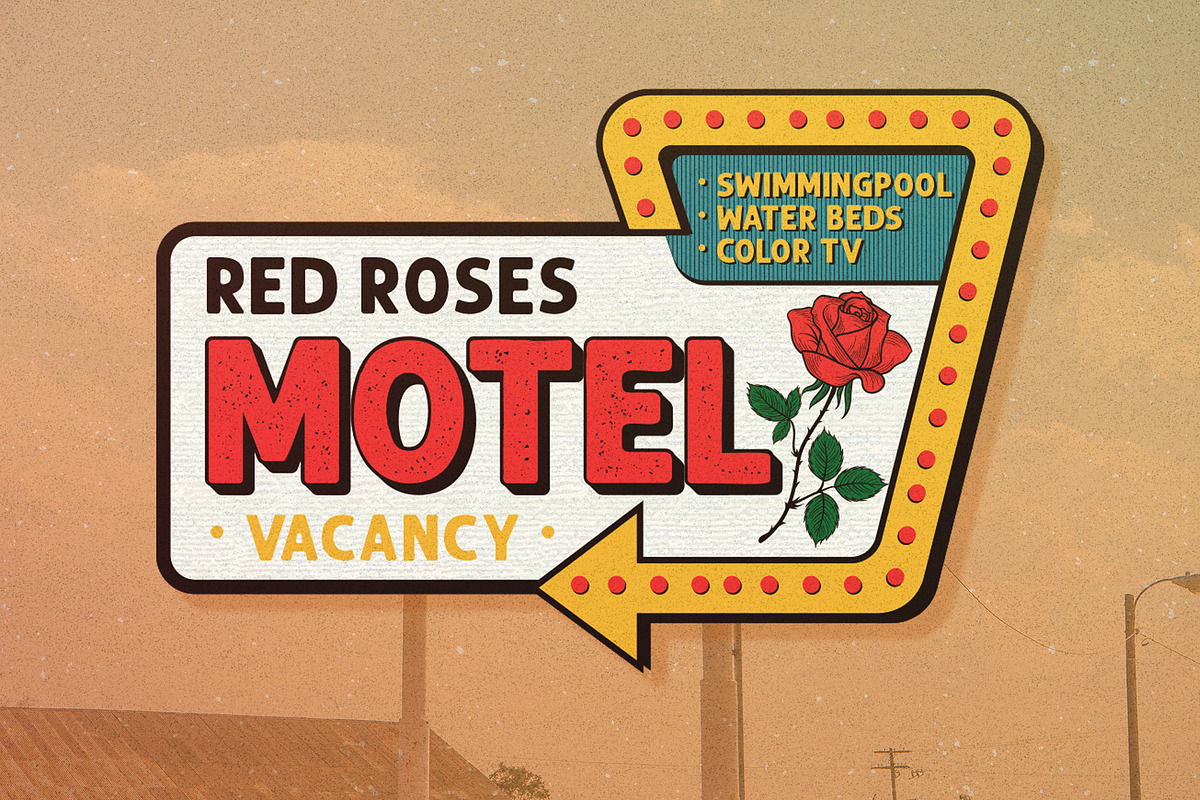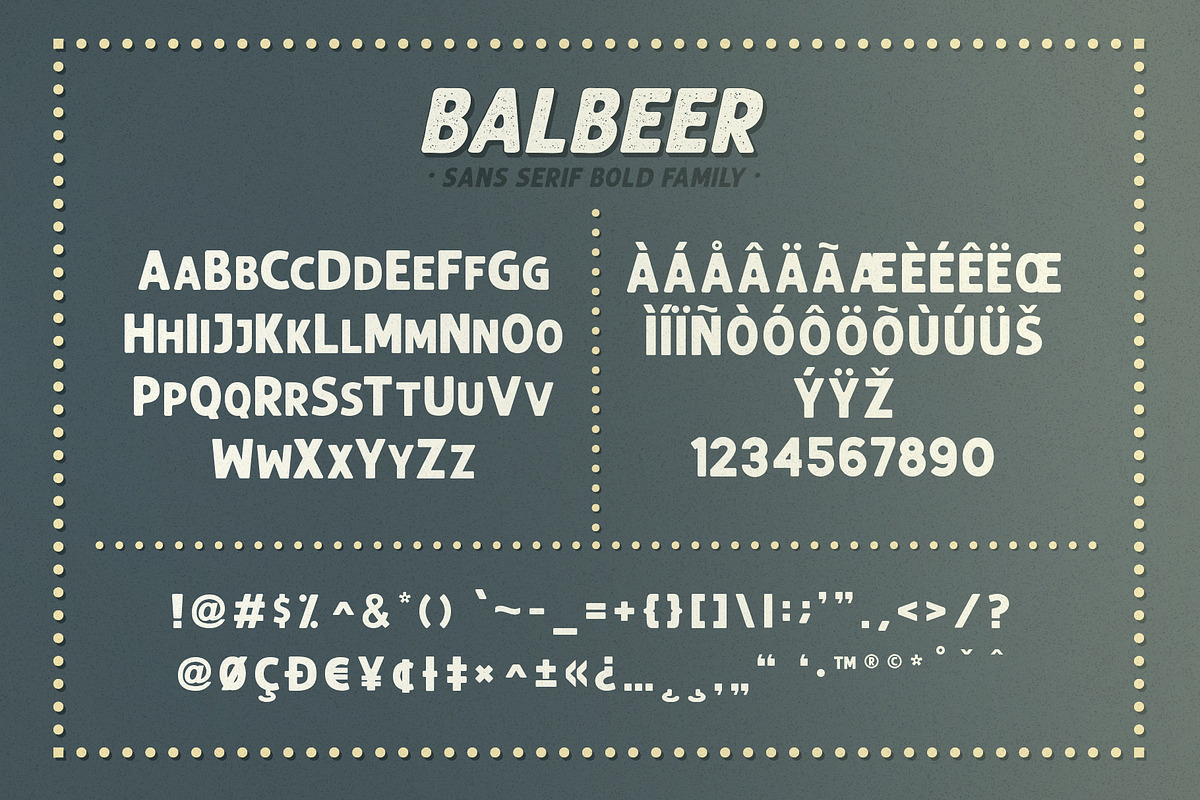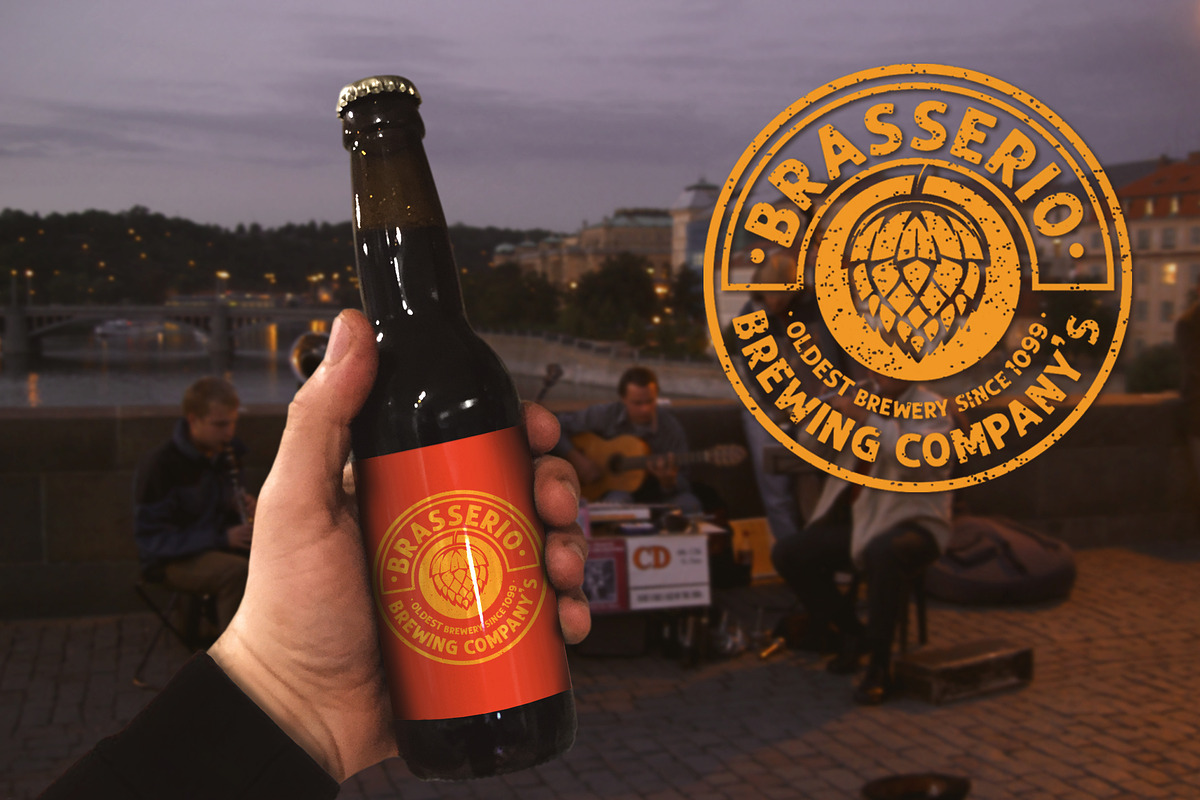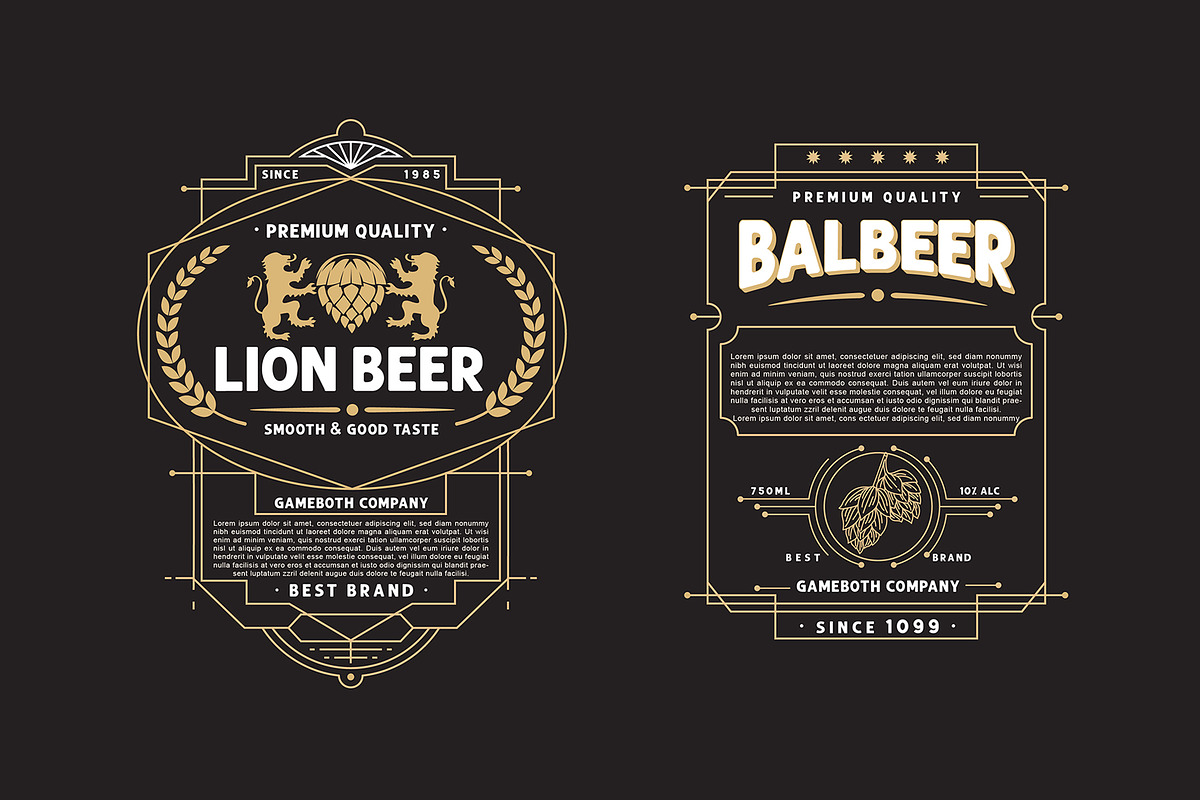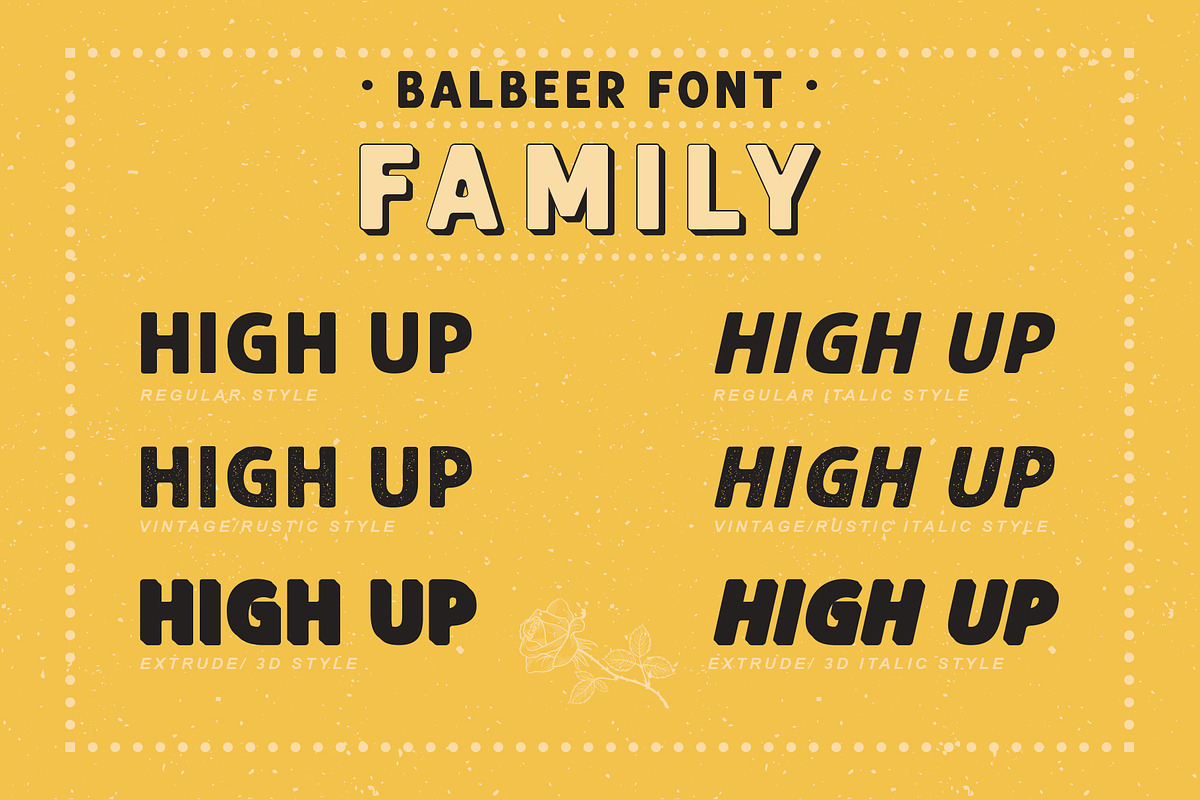
BALBEER FONT with Bonus
Introducing My New Sans Serif Font, i give name BALBEER .
This my second font product, really excited to make a this font. After my first font i tried to make a font can which can represent my design style. I like a vintage and grunge effect on design, so this font is born, i hope you like with this font and enjoy.
BALBEER is sans serif bold family